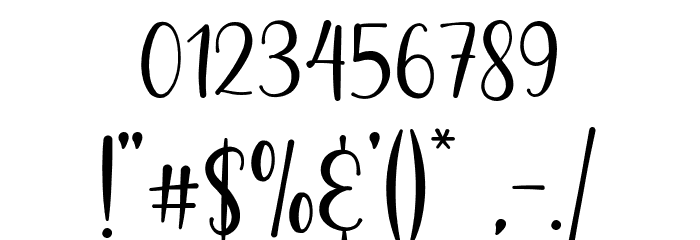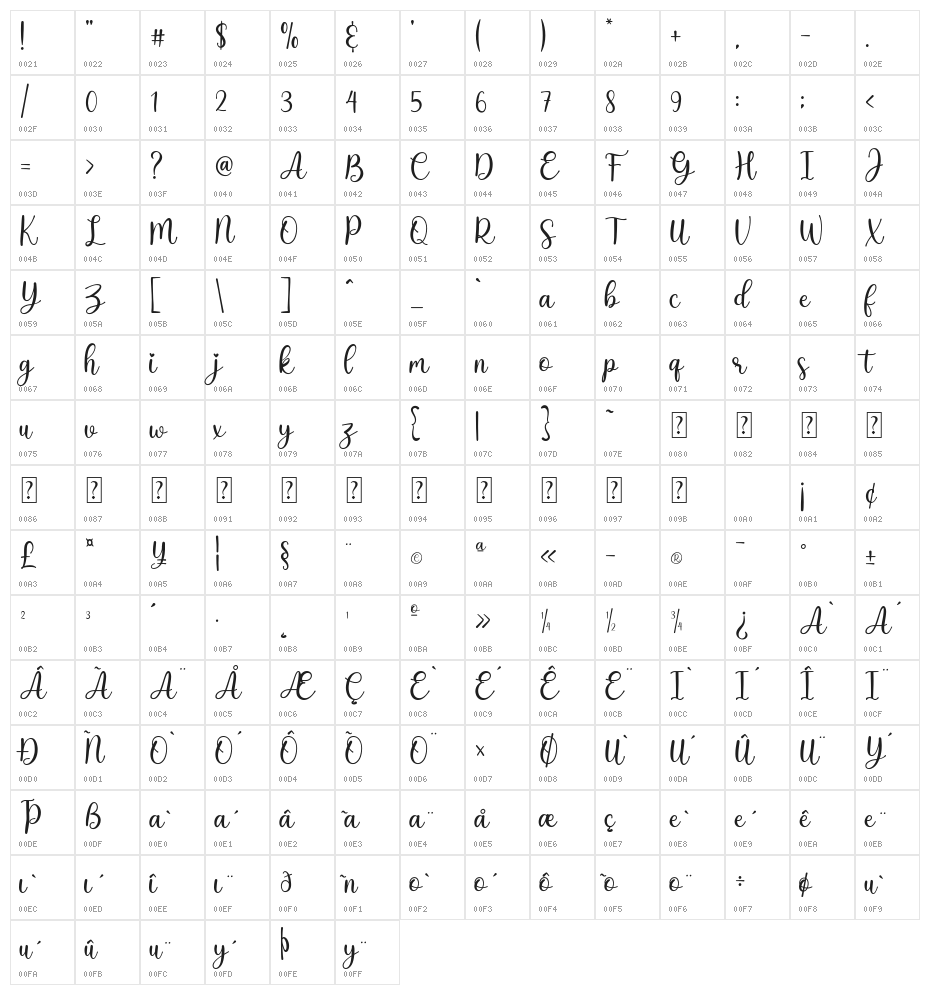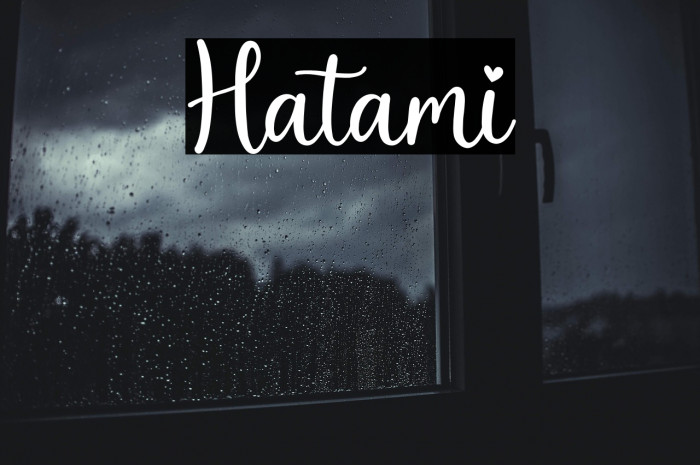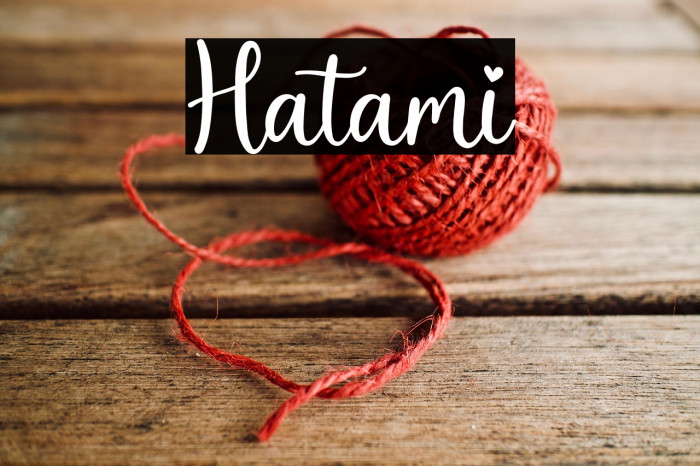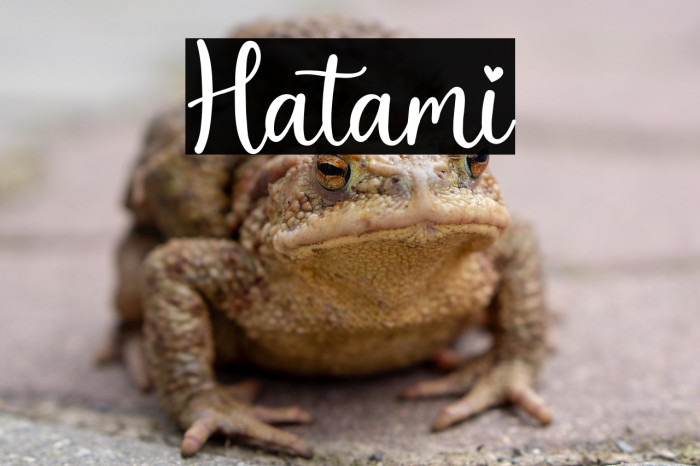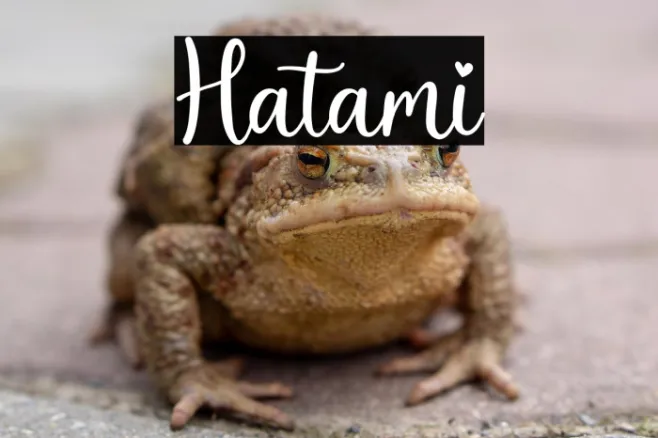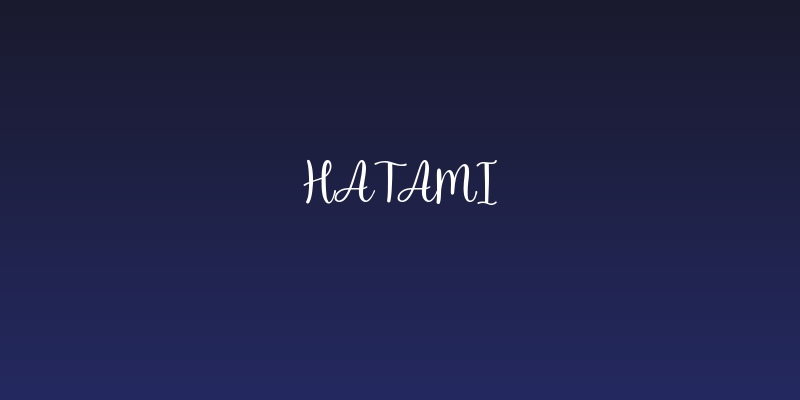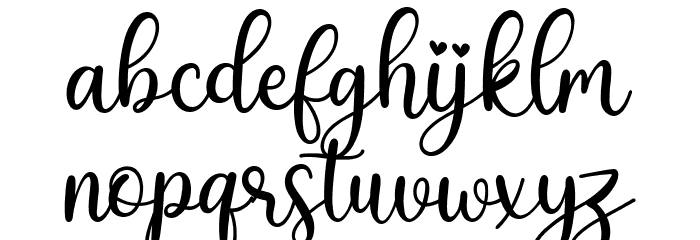
Hatami Font
Hatami Description
This font features a playful and elegant script style, characterized by its fluid and connected letterforms. The uppercase letters are tall and slightly narrow, with a graceful flow that adds a touch of sophistication. The lowercase letters maintain a consistent rhythm, with loops and curves that enhance its handwritten appeal. The numerals are clear and legible, complementing the overall style. Special characters are well-integrated, maintaining the font's cohesive look. This font exudes a sense of charm and creativity, making it suitable for a variety of design projects.